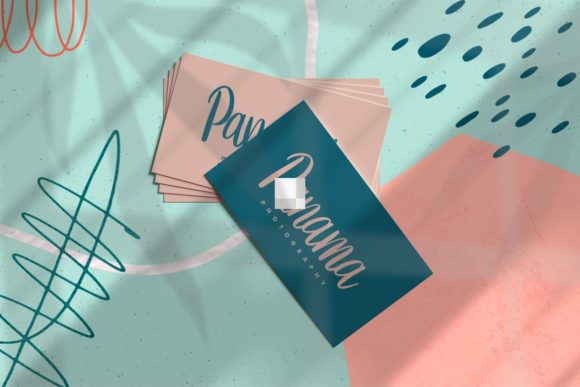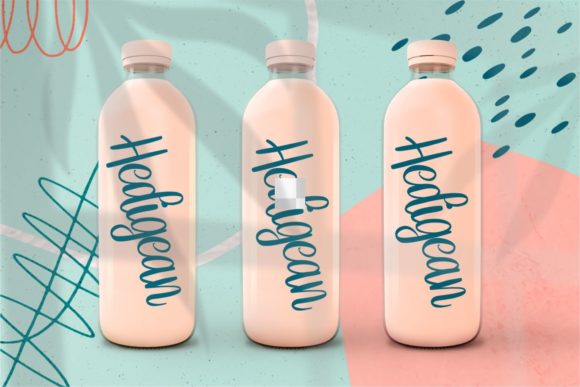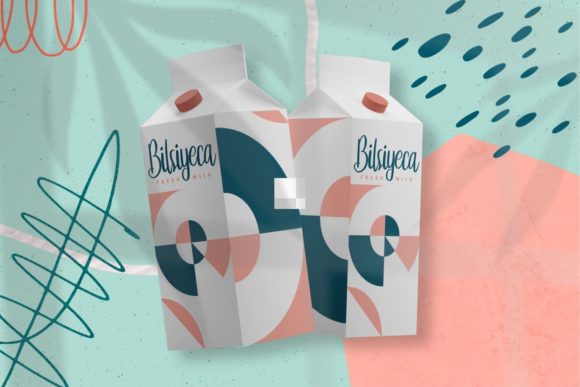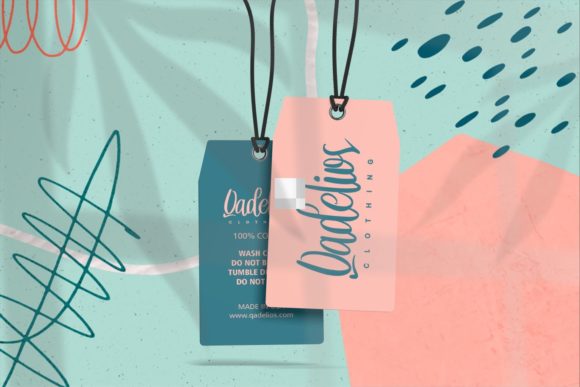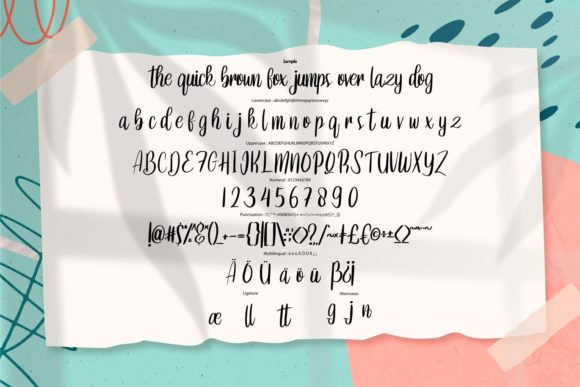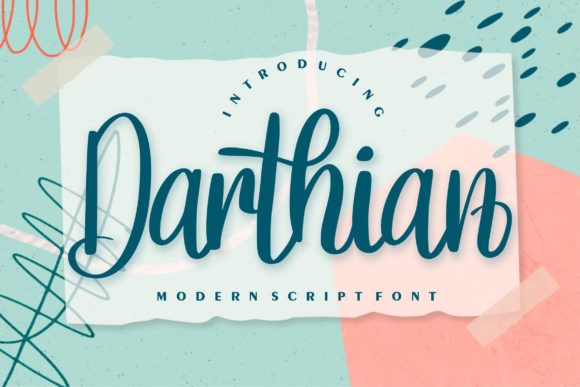
Darthian Font: Elevate Your Designs with a Modern Handwritten Touch
In the realm of typography, fonts play a pivotal role in conveying messages, evoking emotions, and creating lasting impressions. For designers, crafters, and anyone looking to add a personal touch to their projects, the Darthian Font stands out as a versatile and beautiful choice. This modern handwritten font is designed to bring a natural and effortless flow to a wide array of applications, from wedding invitations and greeting cards to branding materials, business cards, quotes, posters, and beyond.
The Charm of Darthian Font
Darthian Font is celebrated for its unique blend of modernity and elegance. Its handwritten nature gives it a personal and approachable feel, making it perfect for projects that require a touch of warmth and intimacy. The font’s natural flow and beautiful curves make it highly readable and visually appealing, ensuring that your designs stand out in a crowded creative landscape.
One of the key advantages of the Darthian Font is its incredible versatility. Whether you’re working on:
- Wedding Invitations: Add a touch of romance and elegance to your wedding stationery.
- Greeting Cards: Make your cards more personal and heartfelt with a font that feels handcrafted.
- Branding Materials: Establish a unique brand voice with a font that’s both modern and approachable.
- Business Cards: Stand out in professional settings with a memorable and stylish font.
- Quotes and Posters: Give your messages the emphasis they deserve with a font that’s clear, readable, and impactful.
Why Choose Darthian Font?
Choosing Darthian Font for your projects comes with several benefits:
- Ease of Use: Designed to be user-friendly, Darthian Font can be easily integrated into your projects, regardless of your design experience.
- High Readability: Its clear and flowing script makes it easy to read, ensuring your message is communicated effectively.
- Customization: The font’s flexibility allows for a range of creative possibilities, from subtle variations to more dramatic expressions.
- Timeless Appeal: Darthian Font’s classic yet modern feel ensures it remains relevant and stylish for years to come.
Incorporating Darthian Font into Your Designs
To make the most of Darthian Font, consider the following tips:
- Mix and Match: Combine Darthian Font with other fonts for a layered look that adds depth and interest to your designs.
- Play with Sizes: Use size variations to create visual hierarchy and emphasize key messages.
- Experiment with Colors: The right color choice can significantly enhance the impact of your design. Choose colors that complement the tone and theme of your project.
- Add Personal Touches: Embellish your designs with illustrations or graphics that resonate with your message and make it more engaging.
Darthian Font offers a unique combination of elegance, versatility, and readability, making it an excellent choice for designers and crafters looking to elevate their projects. Whether you’re creating something for personal use or working on a professional project, this modern handwritten font is sure to add a touch of beauty and sophistication. Explore the creative possibilities with Darthian Font and discover how it can transform your designs into memorable and impactful works of art.